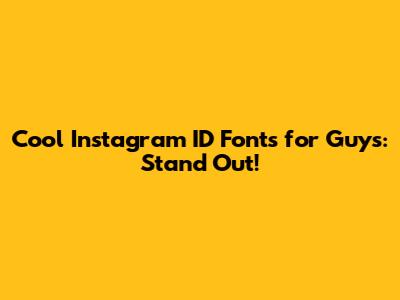
Font Generators: This is your best friend. Online font generators are super easy to use. You simply type in your desired username, and the generator spits out a bunch of different font styles for you to choose from. Some popular font generators include LingoJam, igfonts.io, and Cool Fonts. These sites offer a massive variety of fonts, from fancy cursive scripts to bold, modern sans-serifs. The best part? They're usually free and incredibly user-friendly! You can preview your username in all sorts of different styles until you find the perfect fit.
Font Apps: If you prefer using your phone, there are plenty of apps designed for generating cool fonts. Apps like Stylish Text, Fonts Keyboard, and Cool Fonts for Instagram let you create unique text directly on your mobile device. These apps often have extra features like customizable text sizes, colors, and the ability to combine different font styles. They are a great tool if you are always on the go. Plus, these apps are often a lot of fun, letting you experiment with all sorts of crazy styles and customizations. It's a quick and convenient way to update your Instagram ID wherever you are.
Copy and Paste: Once you've found a font you like using a generator or app, the process is simple: copy the text from the generator and paste it into your Instagram username field. That's it! Instagram will render the special characters as your chosen font. It's an easy hack that allows you to bypass Instagram's standard font limitations and express yourself creatively.
Font Websites: For those who want more control or a wider range of options, consider exploring dedicated font websites like DaFont and FontSpace. These websites offer an extensive library of fonts, although you might need to download them and use them in a font generator or app. While this method requires a few extra steps, it opens up a world of professional-quality fonts that can really elevate your profile. You can also explore font trends and find styles that match your overall aesthetic.
Bold and Strong Fonts: This is a classic. Fonts like Impact, Bebas Neue, or any other heavy sans-serif fonts scream confidence and strength. These are great if you want to project a sense of power or are involved in sports, fitness, or gaming. These fonts are clean, easy to read, and make your username stand out, which is perfect for grabbing attention at a glance. They work well for usernames that are straightforward and to-the-point.
Modern Sans-Serif Fonts: Clean and modern. Roboto, Open Sans, or similar sans-serif fonts convey a sense of professionalism and style. These are a great choice if you want a minimalist look or are into tech, design, or business. This style is very versatile and blends well with modern aesthetics. It provides a clean, uncluttered look that's easily readable on any device.
Edgy and Cool Fonts: Looking for something with a bit more attitude? Consider fonts that have a bit of a distressed or grunge look, like Metal Mania or Blackout. These fonts give off a rebellious and cool vibe, perfect for those with a more alternative or edgy style. Ideal if you are into music, skateboarding, or anything that goes against the grain. Such fonts have a unique character that can make your username stand out from the crowd.
Retro and Vintage Fonts: If you're into vintage aesthetics or a throwback vibe, choose fonts like Times New Roman or Courier New. These fonts are reminiscent of old-school typewriters or classic designs. This can be great if you're into classic cars, retro games, or anything with a vintage appeal. These fonts offer a nostalgic touch that can be very attractive for the right audience.
Handwritten Fonts: A handwritten font can add a personal touch to your Instagram profile. Fonts like Brush Script MT or similar script fonts can give your username a more personal and approachable feel. This style is often used by creatives, artists, or anyone who wants to convey a sense of authenticity. It makes the username feel more personalized and unique. It feels like someone actually wrote your name down.
Generate Your Font: Use your favorite font generator or app to create the text for your new username. Type in your desired name, and then choose a font style you like. Once you're happy with how it looks, copy the text.
Open Instagram: Open the Instagram app on your phone. Make sure you are logged into the account you wish to edit.
Go to Your Profile: Tap on your profile picture icon in the bottom right corner of the screen to go to your profile page.
Edit Your Profile: Tap the
Hey guys! Ever scrolled through Instagram and noticed some profiles with super cool and unique fonts in their usernames? You've probably wondered how they did it, right? Well, creating an awesome Instagram ID font style for boys is easier than you think! Today, we're diving deep into the world of stylish Instagram fonts, perfect for making your profile pop and grabbing attention. We’ll explore different font styles, where to find them, and how to use them to create an Instagram ID that reflects your personality and stands out from the crowd. So, buckle up, and let's get started on transforming your Instagram game!